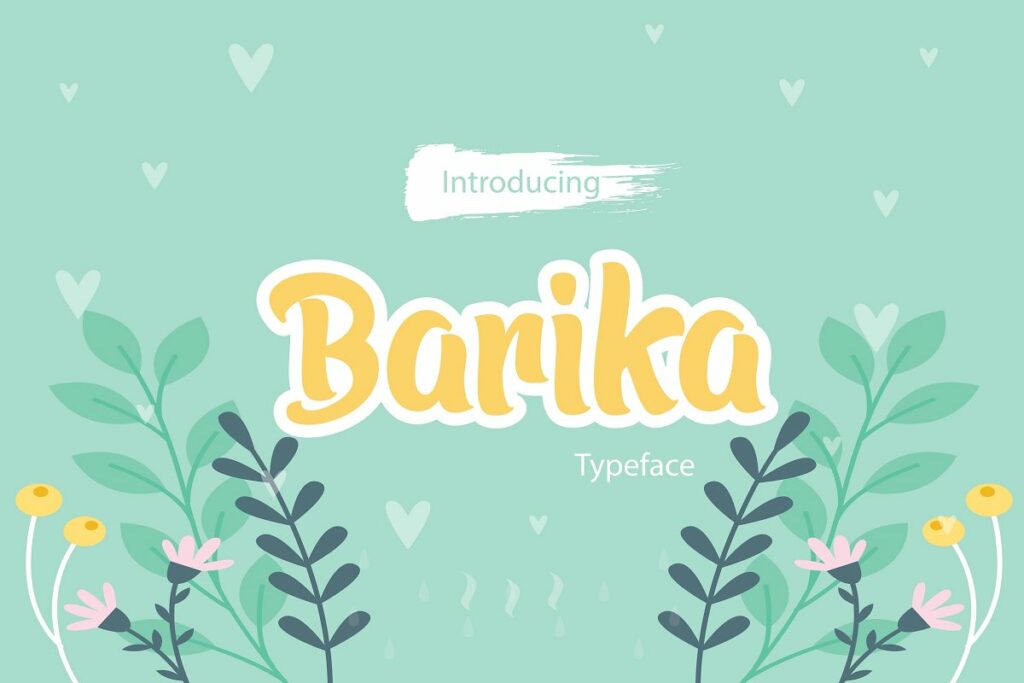
Barika Display Font
Barika is a cute display font, designed to match a wide variety of creative ideas. Fall in love with its sweet and simple style and brighten up each of your projects!